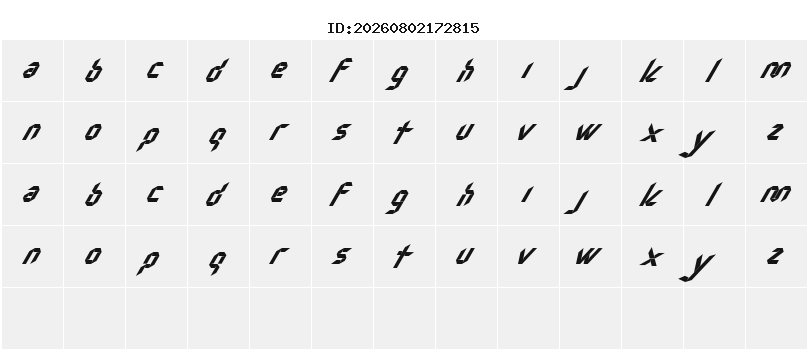
Nudo Preview
• Font Name: Nudo
• Full Font Name: Nudo Italic
About Nudo.ttf
Nudo.ttf is a modern, elegant sans-serif font designed for ultimate readability and visual harmony. Perfect for branding, headlines, web design, and print materials.